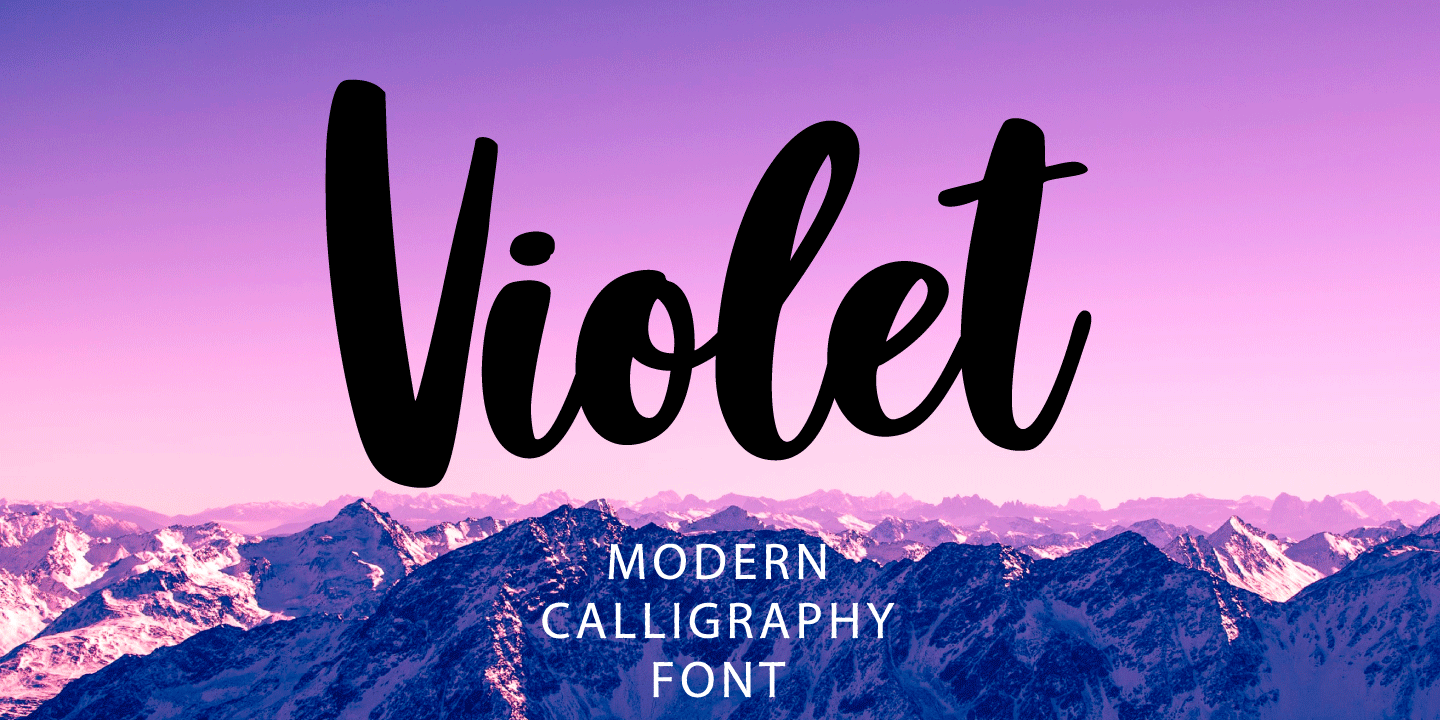
Violet Font is perfect for elegant beauty branding, feminine wellness campaigns, romantic wedding invitations, luxury floral shop signage, sophisticated cosmetic packaging, delicate jewelry marketing, graceful spa communications, feminine fashion boutiques, elegant stationery design, and refined lifestyle advertising.
What makes Violet Font exciting is its delicate femininity that perfectly captures the gentle grace and sophisticated elegance found in feminine beauty and romantic lifestyle expressions. This typeface features flowing letterforms with petal-soft proportions and floral-inspired details that evoke the subtle beauty and refined charm of violet flowers and feminine sophistication. The font's graceful personality and feminine authenticity make it ideal for beauty brands seeking to convey elegance, delicacy, and the refined femininity that comes from gentle beauty and sophisticated feminine expression.
Violet Font family includes graceful weight variations and feminine alternatives that enhance its delicate appeal while providing design flexibility for beauty and feminine lifestyle applications. The font features elegant ligatures, floral-themed ornaments, and delicate character variations that create authentic feminine atmosphere for beauty and elegant lifestyle branding.
Beauty companies and feminine lifestyle brands consistently select Violet Font Free Download for projects requiring authentic feminine appeal and elegant credibility. The font's delicate character excels in applications targeting sophisticated women who appreciate genuine elegance and refined feminine beauty. Whether you're designing for beauty salons, feminine fashion, or elegant lifestyle products, this graceful typeface delivers the feminine authenticity and delicate elegance that resonates with audiences seeking genuine beauty and the sophisticated femininity that defines elegant women's lifestyle and refined beauty culture that celebrates gentle grace and feminine sophistication.